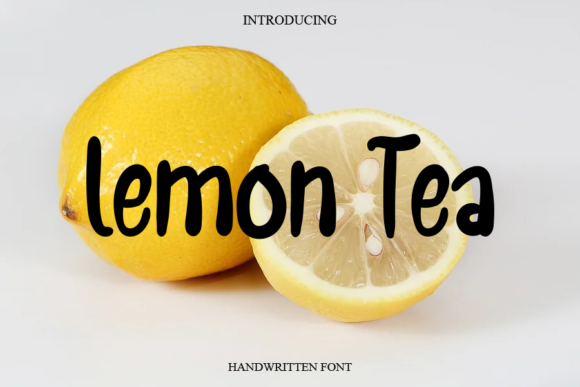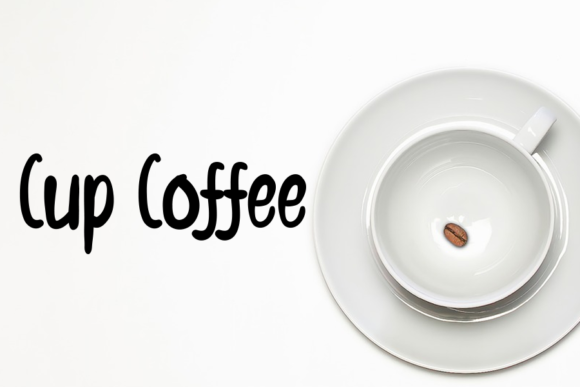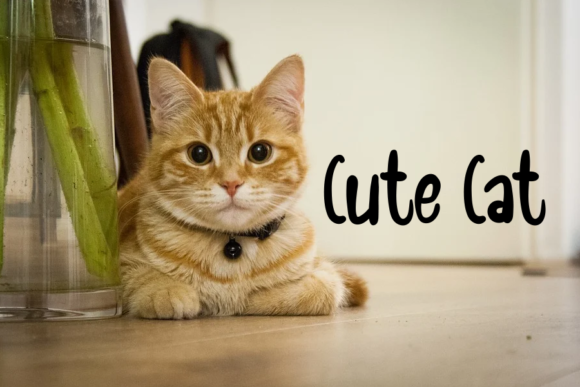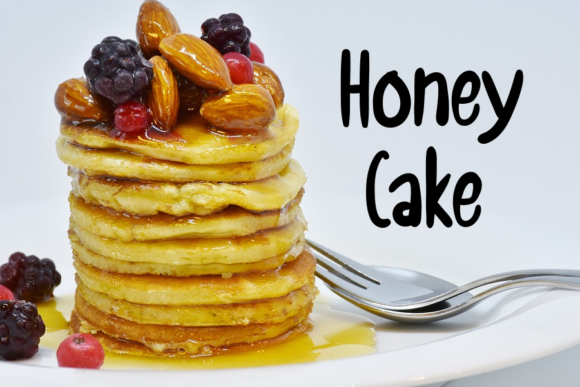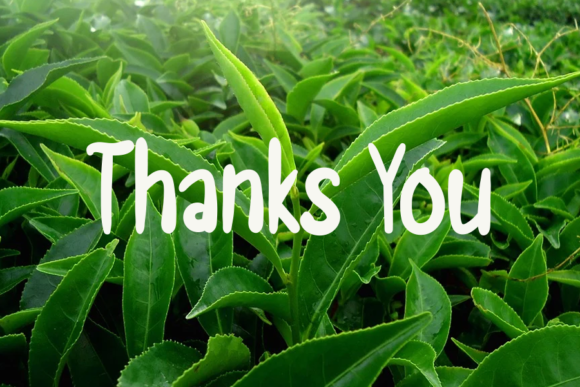
Lemon Tea Font
About Lemon Tea Font
Lemon Tea is a cute and friendly handwritten font, that can be used for all chalkboard quotes or teaching material! Its authentic look and feel will add a personal and realistic feel to your designs.